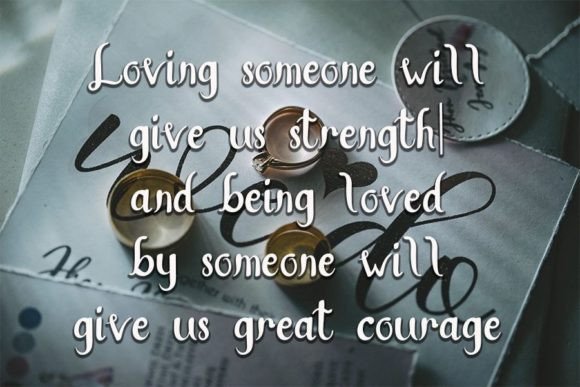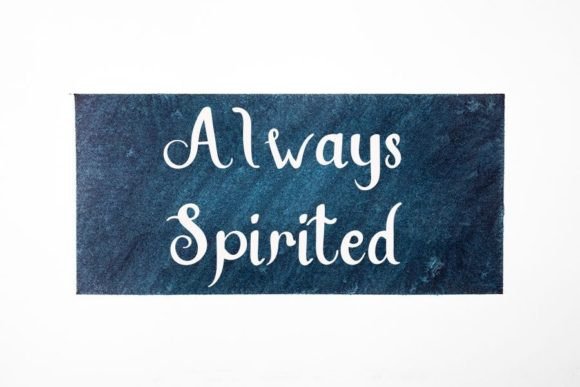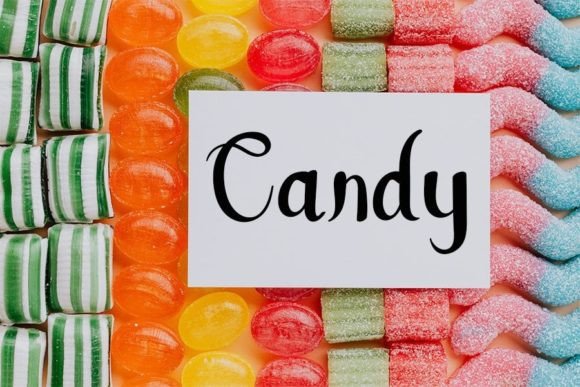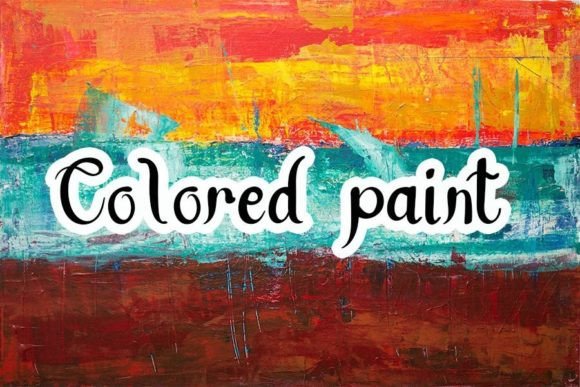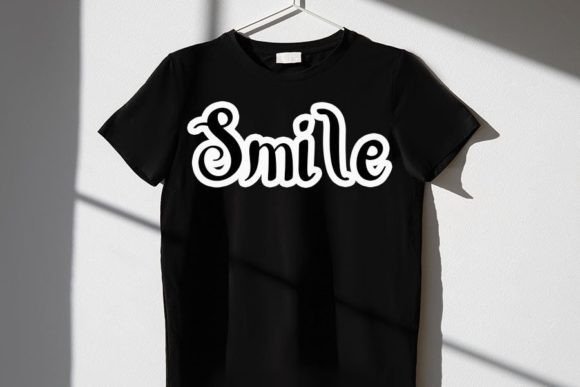
Introduction to September Moon Font
September Moon is a friendly handwritten font, carefully designed to become a true favorite.
It maintains its classy calligraphic influences while feeling contemporary and fresh Add it to your creative projects and make them outstanding.
September Moon Font offers exceptional quality and versatility, making it a valuable addition to your design toolkit. Whether you’re creating for personal projects or commercial use, September Moon Font delivers professional results.